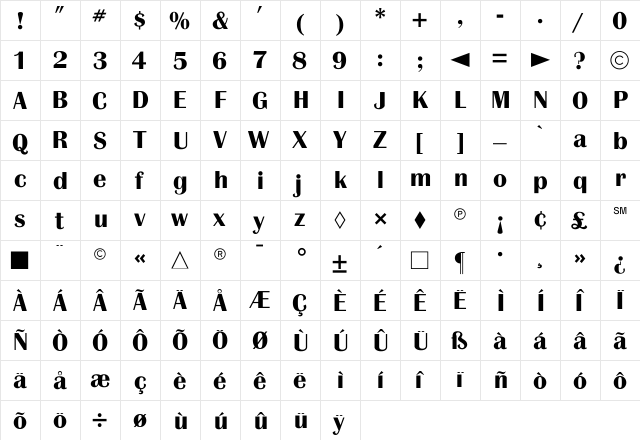
CgBritanniaBold Regular
Design Context for CgBritanniaBold Typeface
CgBritanniaBold takes a measured approach to typography — its balanced proportions and neutral character make it a reliable workhorse for both digital and print work. The heavy weight commands attention and anchors typographic hierarchies.